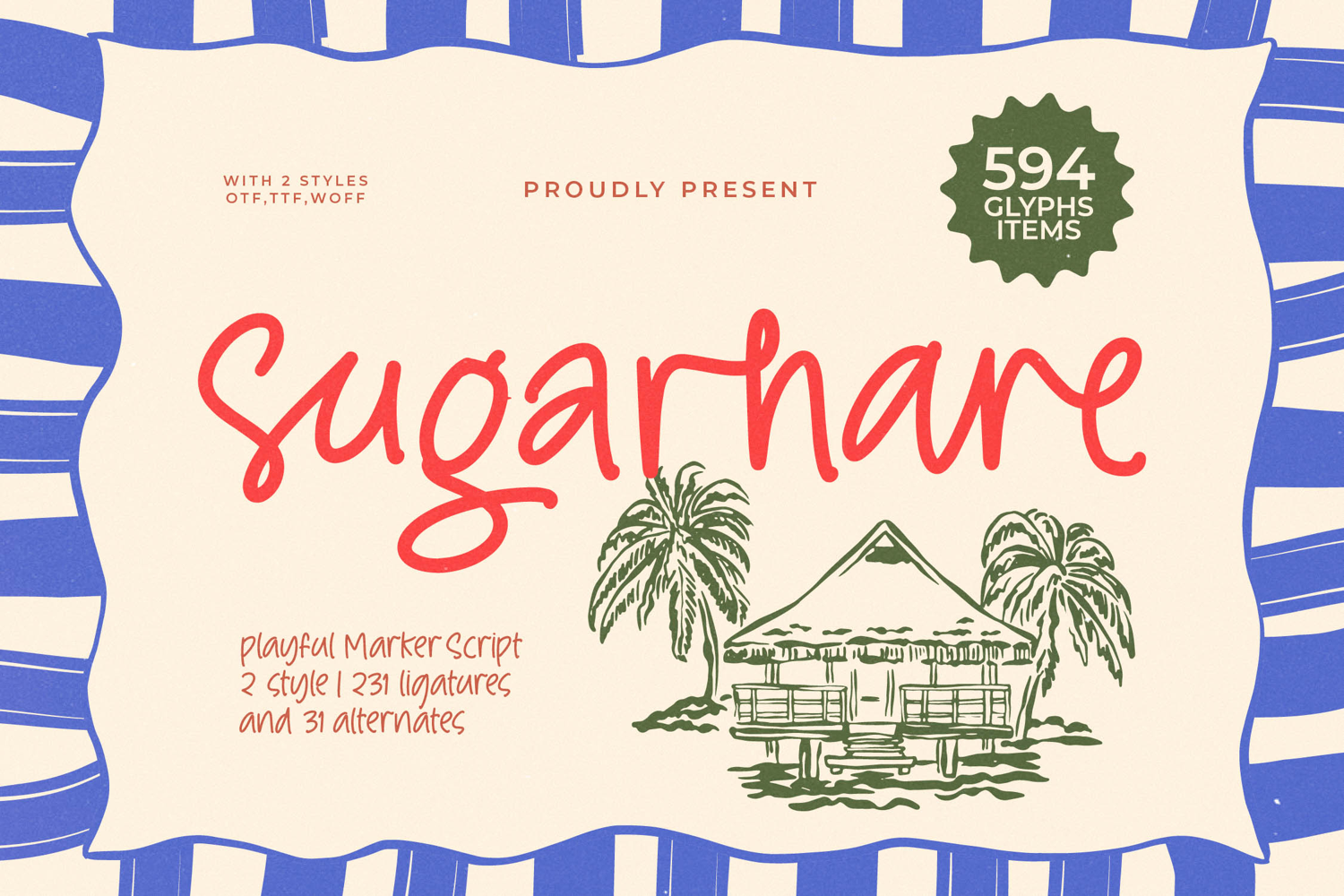
Sugarhare - Playful Marker Script
Unleash a wave of spontaneous energy with Sugarhare, a playful marker script that bottles the feeling of an endless summer. Every character flows with a carefree charm, capturing an authentic handwritten feel with its smooth, monoline strokes and bouncy baseline. This isn't just a font; it's a burst of personality, designed to inject your projects with a vibrant, sun-drenched spirit that feels both friendly and refreshingly modern.